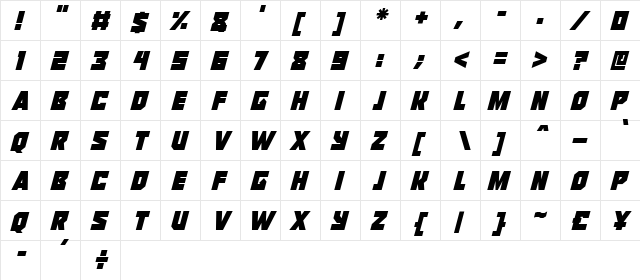
Reavers Italic
Design Context for Reavers Typeface
Reavers is a composed and adaptable typeface that performs quietly and consistently across a wide range of design contexts. The dynamic lean of this cut emphasises speed and emphasis in any layout.